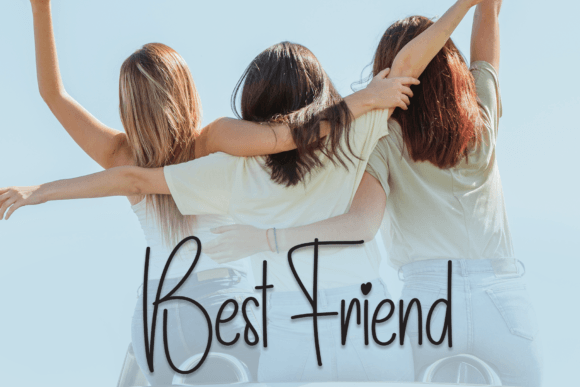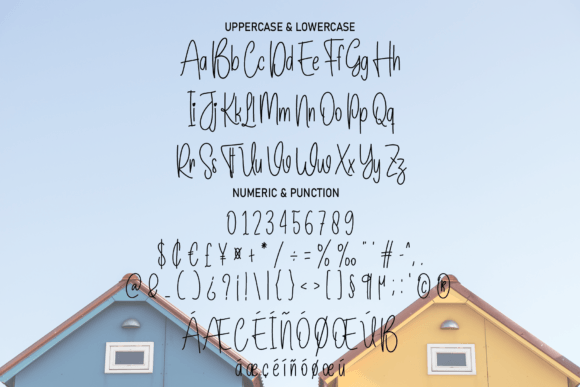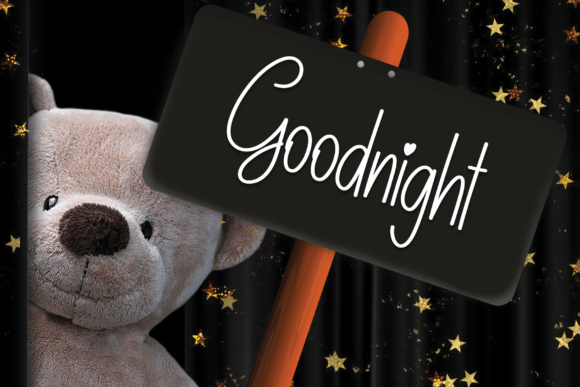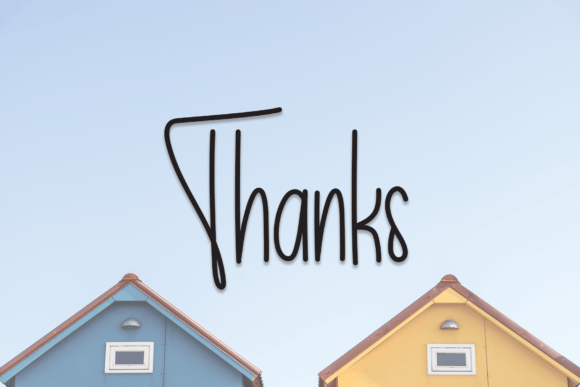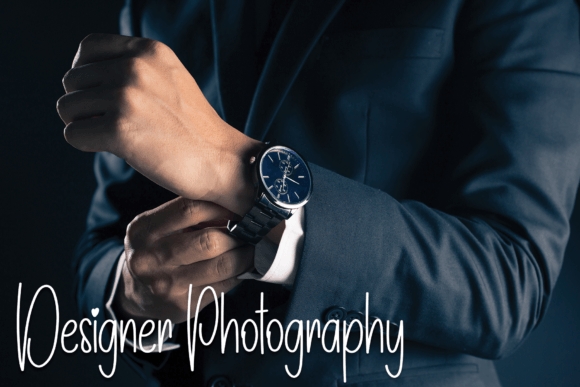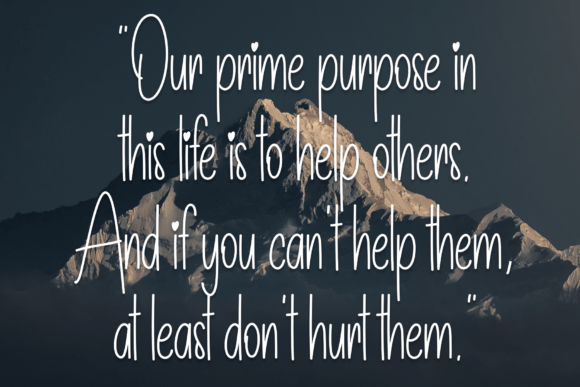
Introduction to House Planner Font
Casual and neat, this handwritten font is ready to help you create lovely designs.
A little bit quirky, House Planner looks incredibly adept in a wide variety of contexts .